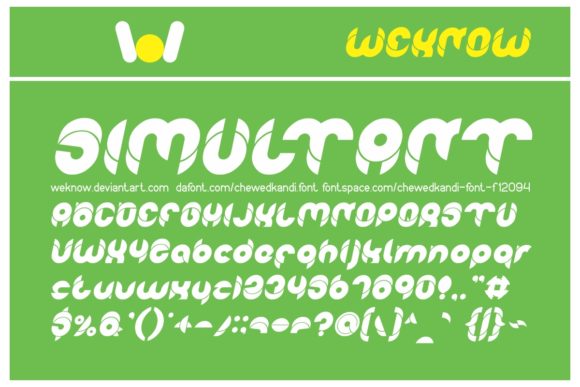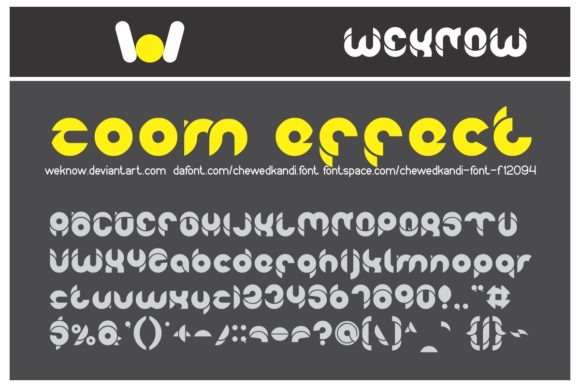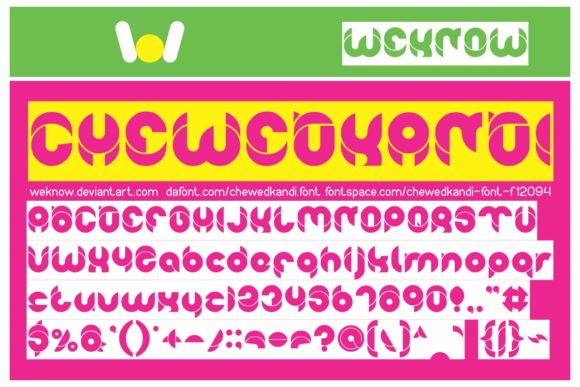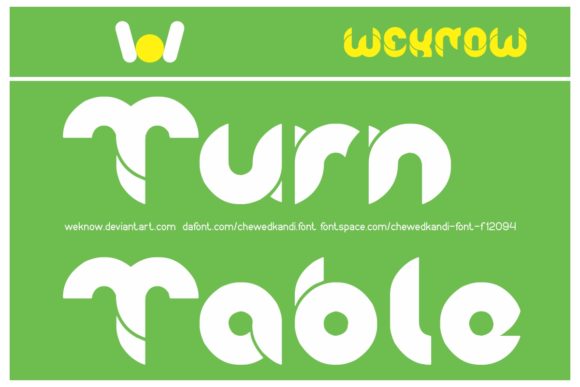
The Chewedkandi Font: A Playfully Conceptual Display Typeface
This playfully conceptual display typeface font has a unique, abstract beauty that immediately caught my attention. I knew right then and there that it would be perfect for the cafe’s branding, and I couldn’t wait to dive in and explore its features.
An Honest Review of Chewedkandi
- ✅ Unique, abstract shapes that add a touch of eclecticism to any design
- ✅ Highly legible, even at large sizes
- ✅ Extensive OpenType features, including stylistic alternates and glyphs
- ✅ Perfect for display text, headings, and titles
- ⚠️ May not be suitable for body text or small font sizes
- ⚠️ Some characters may require manual kerning for optimal spacing
The Designer Inspiration Behind Chewedkandi
Chewedkandi was designed by a team of creatives who wanted to push the boundaries of traditional typography. Inspired by abstract shapes and eclectic patterns, they created a font that celebrates individuality and self-expression. The result is a truly unique and eye-catching display typeface that’s perfect for designers, crafters, and creative hobbyists.
| What is Chewedkandi? | Chewedkandi is a playfully conceptual display typeface font that celebrates abstract shapes and eclectic patterns. |
| What is Chewedkandi best used for? | Chewedkandi is best used for display text, headings, and titles, where its unique and eye-catching design can shine. |
| Can I use Chewedkandi for body text? | While Chewedkandi can be used for body text, it may not be the most legible choice for small font sizes. It’s best used for display text and headings. |
| Does Chewedkandi support OpenType features? | Yes, Chewedkandi supports OpenType features, including stylistic alternates and glyphs. |